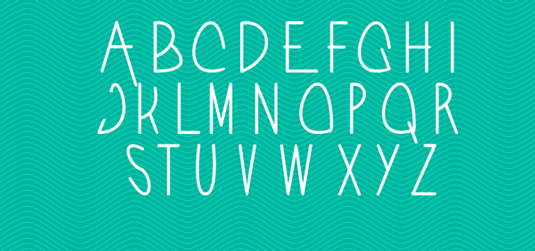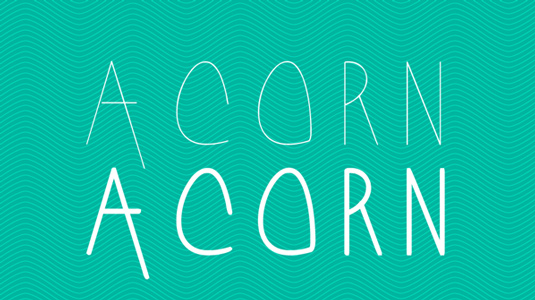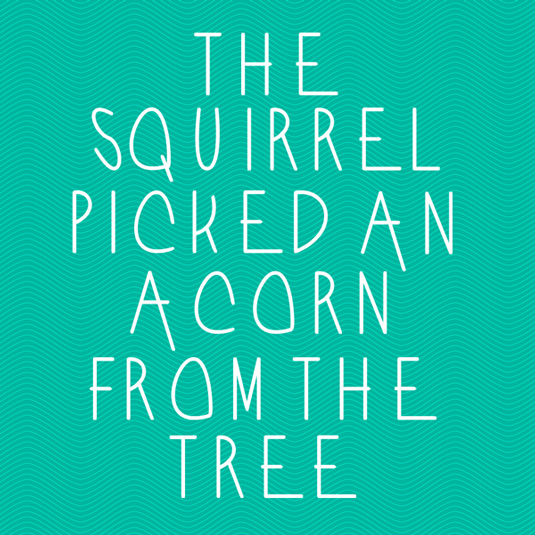
Font of the day: Acorn
Every day we showcase the best fonts on the web. Today it's Acorn by William Bayley Suckling.
Acorn by William Bayley Suckling
Today's font of choice, Acorn, was developed by 23-year-old design graduate William Bayley Suckling. Currently working in Shoreditch, Suckling's fresh and clean design is perfect for providing an authentic handmade feel to any project.